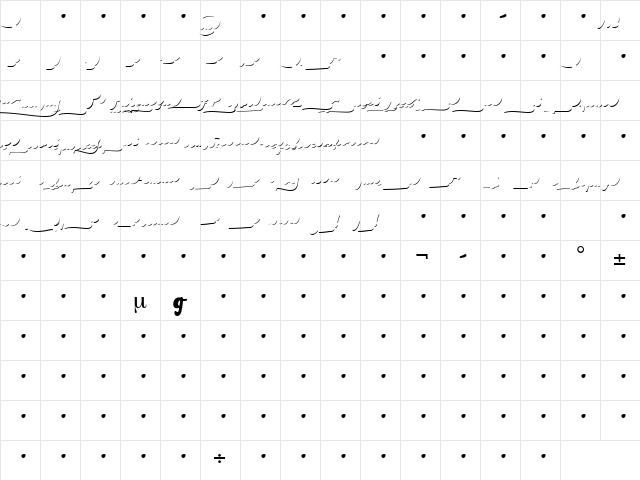
Bello Words Shadow
Design Context for Bello Typeface
Bello is built around its visual character rather than neutral utility — its distinctive forms are designed to make an impression at display sizes.
Font Pairing: Pair with a clean neutral sans-serif for body copy to let Bello's character lead without overwhelming the composition.
Pro Tip: Treat Bello as the centrepiece of your typographic hierarchy. One strong heading set in a decorative face can carry an entire layout.